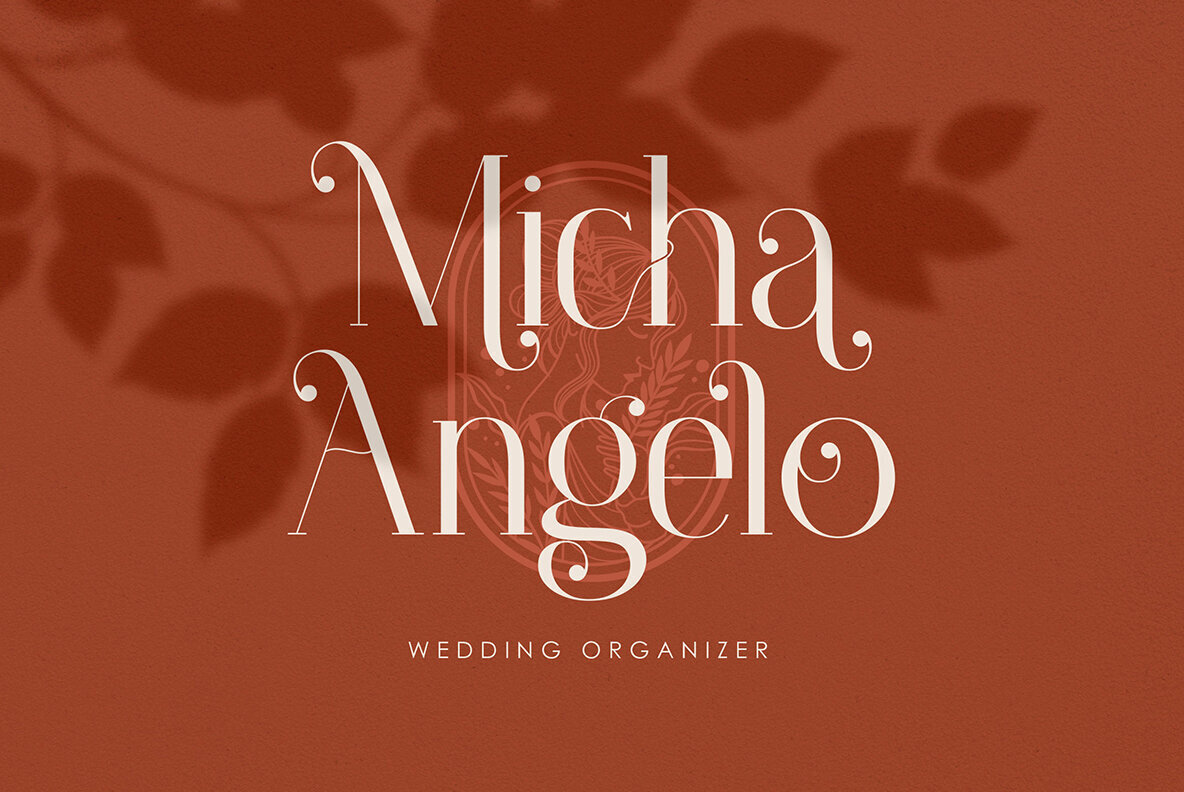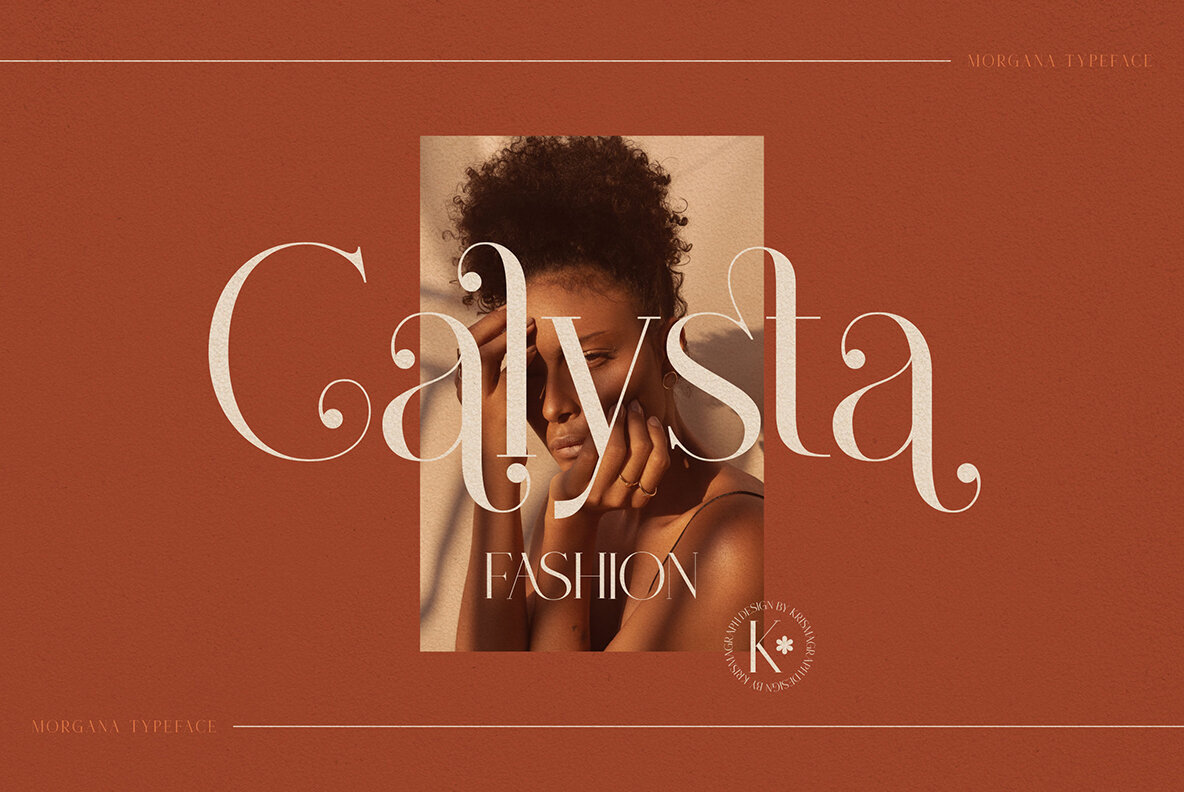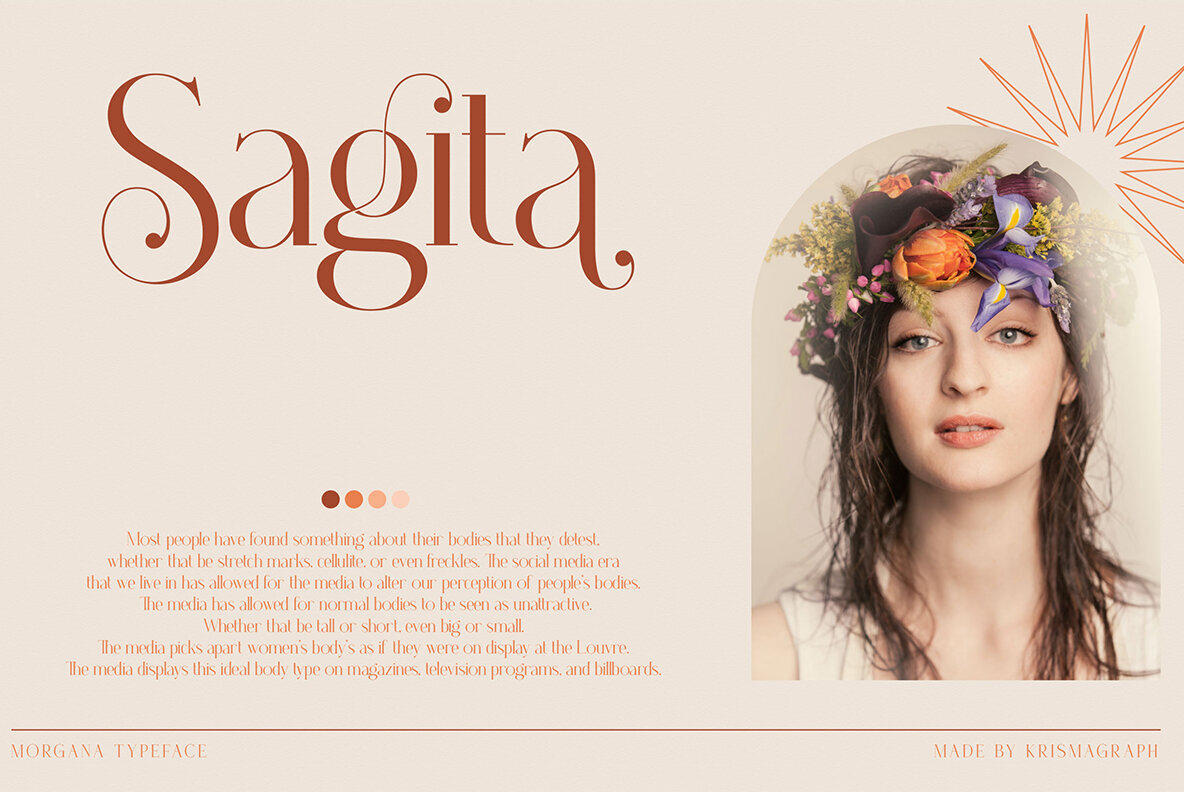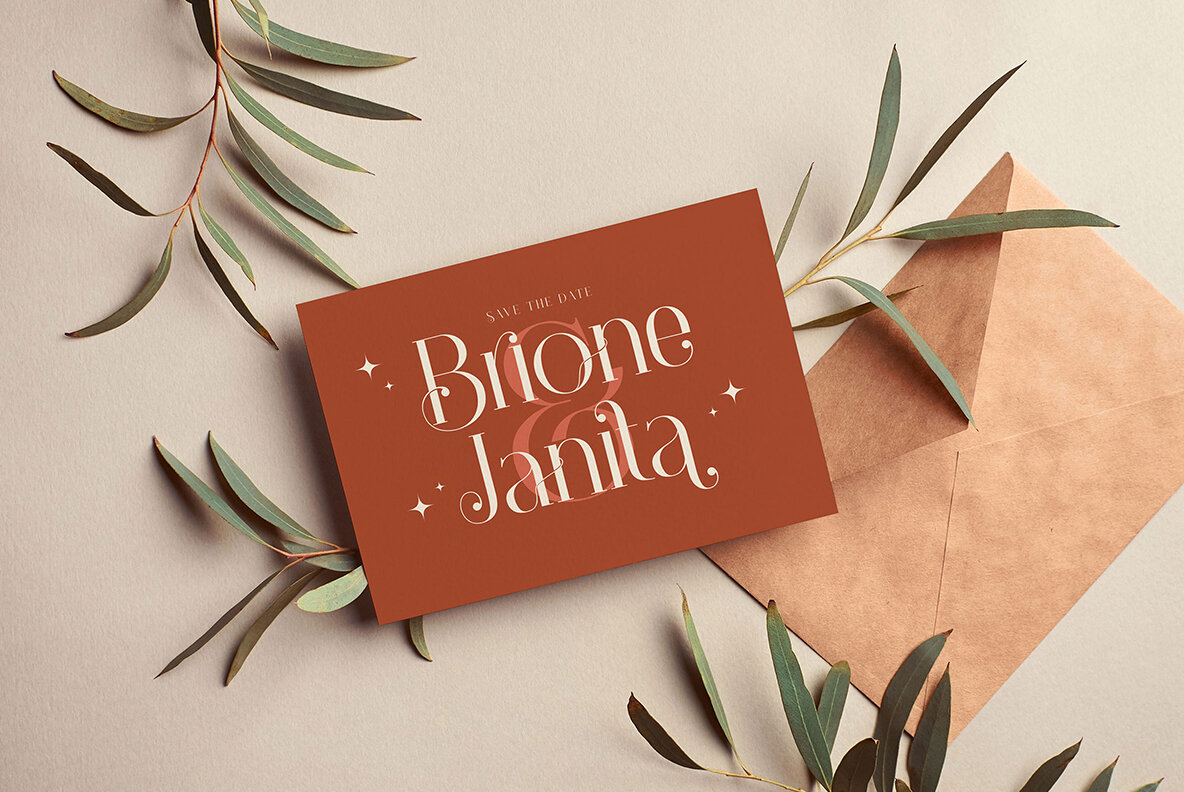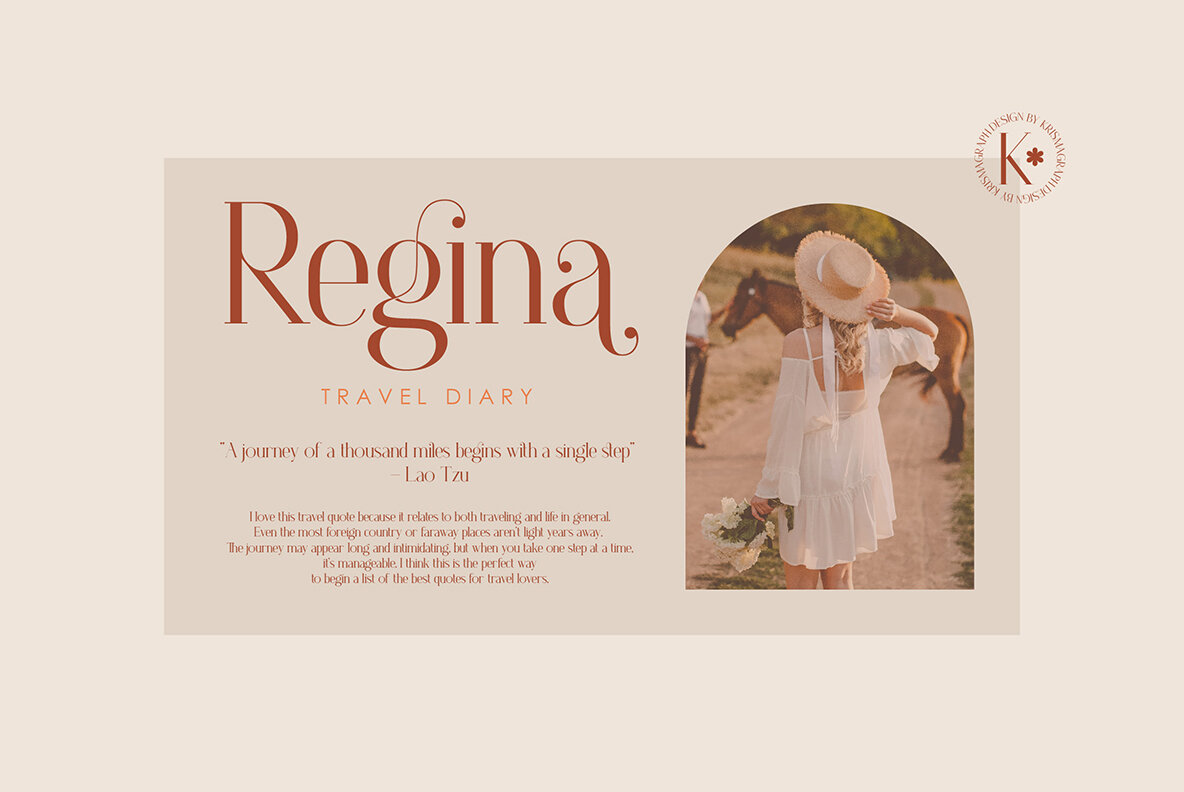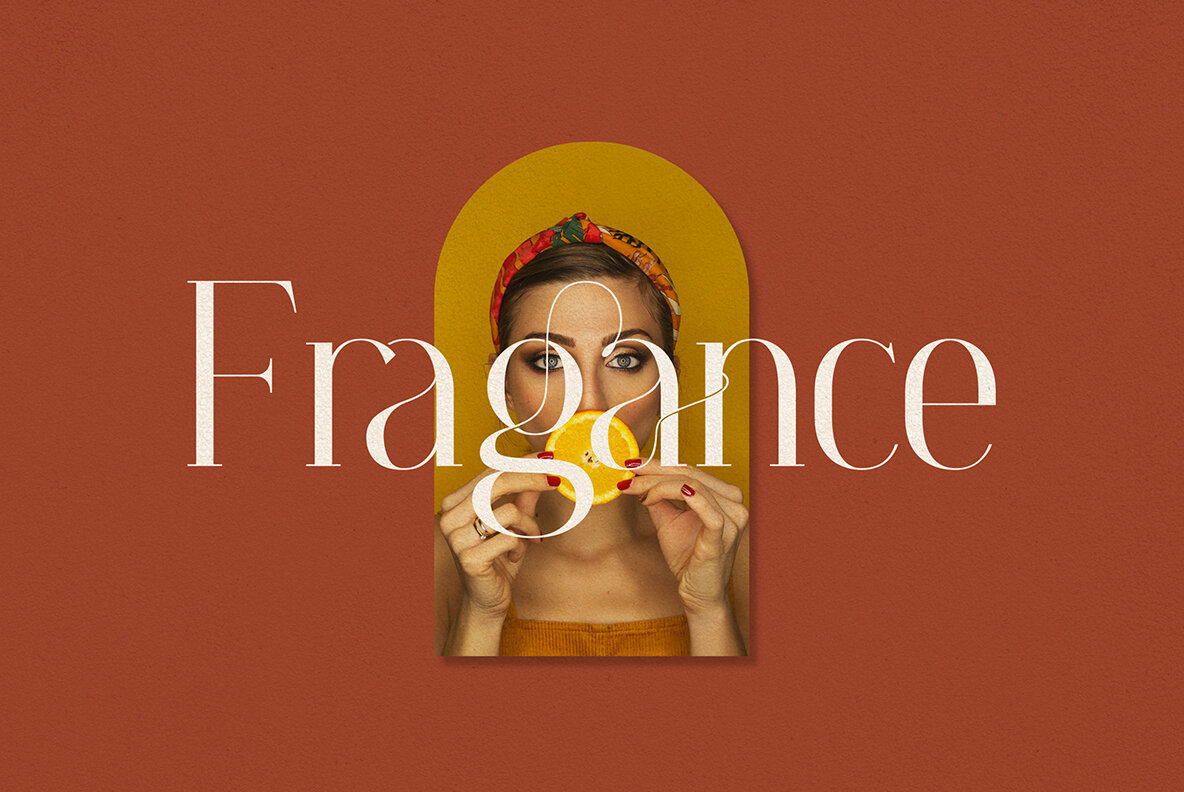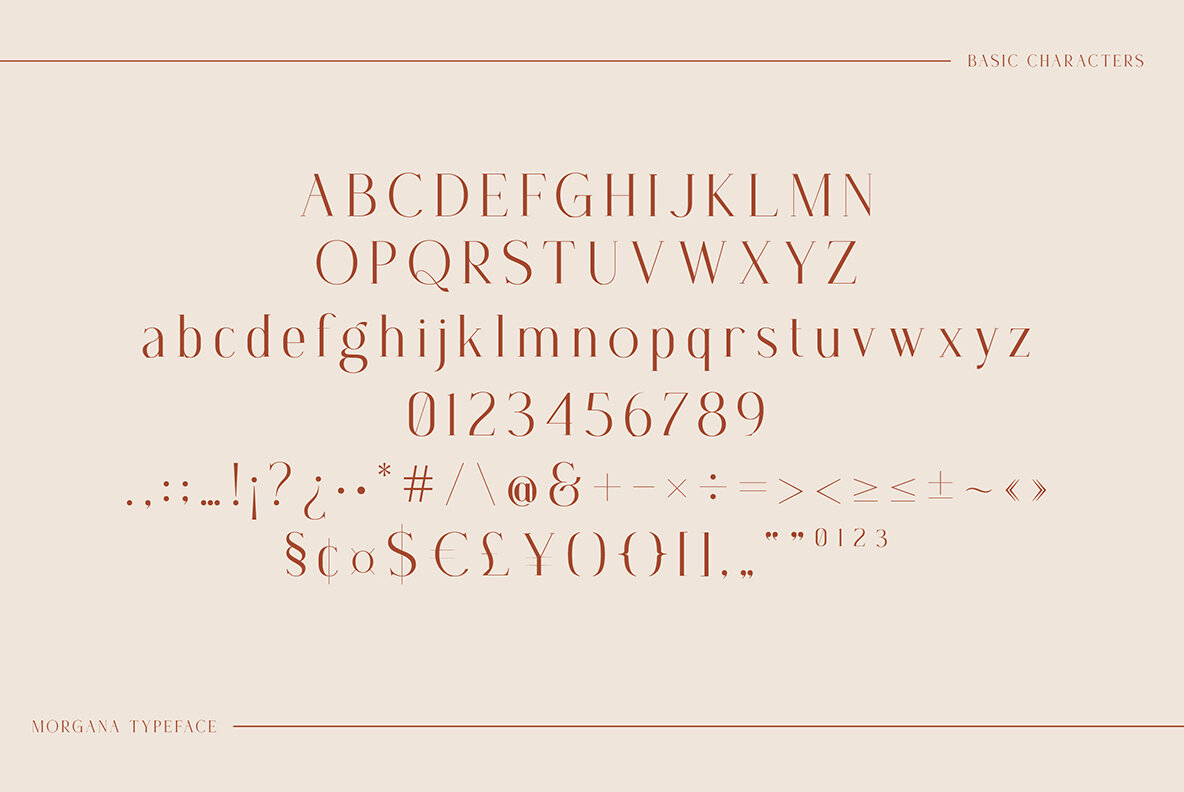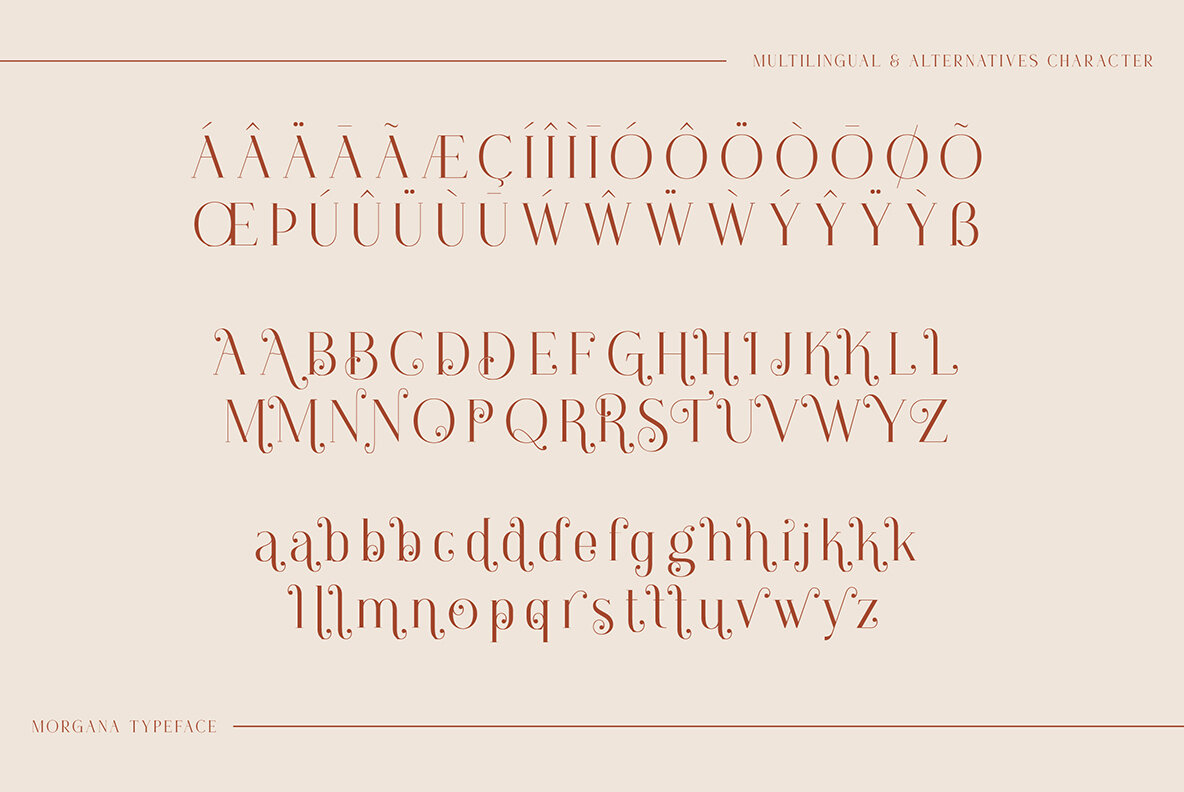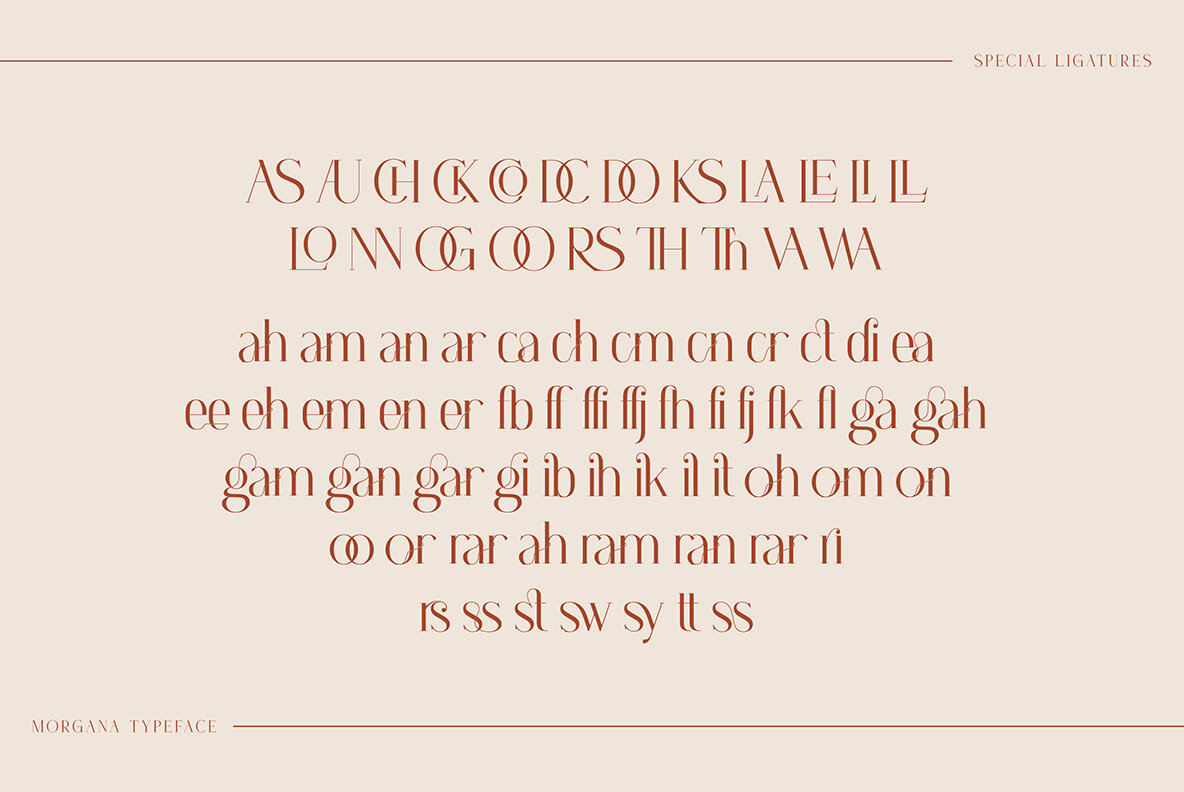
Morgana 1
Morgana is a font that can be used for both modern and classic designs. With its soft curves, high contrast glyphs and feminine/masculine qualities it's perfect to create quotes or body copy in any layout style!